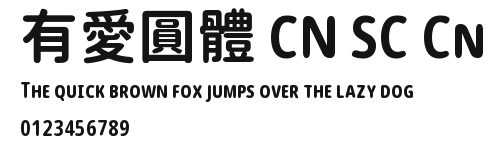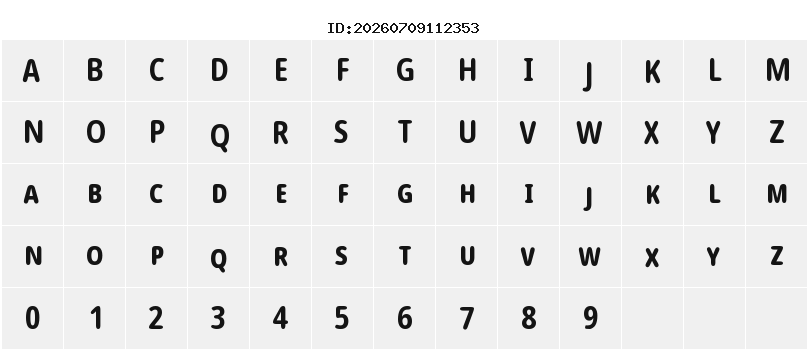
• Font Name: 有愛圓體 CN SC Cn
• Font ID: NOWR: Nowar Rounded CN Smallcaps Condensed Bold 0.3.0
• Full Font Name: 有愛圓體 CN Smallcaps Condensed Bold
• Designer: Cyano Hao (round all glyphs, character set definition & modification for World of Warcraft); Monotype Design Team (Latin, Greek & Cyrillic); Ryoko NISHIZUKA 西塚涼子 (kana, bopomofo & ideographs); Sandoll Communications 산돌커뮤니케이션, Soo-young JANG 장수영 & Joo-yeon KANG 강주연 (hangul elements, letters & syllables); Dr. Ken Lunde (project architect, glyph set definition & overall production); Masataka HATTORI 服部正貴 (production & ideograph elements)
• Manufacturer: Nowar Typeface
About 有愛圓體 CN SC Cn.ttf
有愛圓體 CN SC Cn.ttf is a modern, elegant sans-serif font designed for ultimate readability and visual harmony. Perfect for branding, headlines, web design, and print materials.